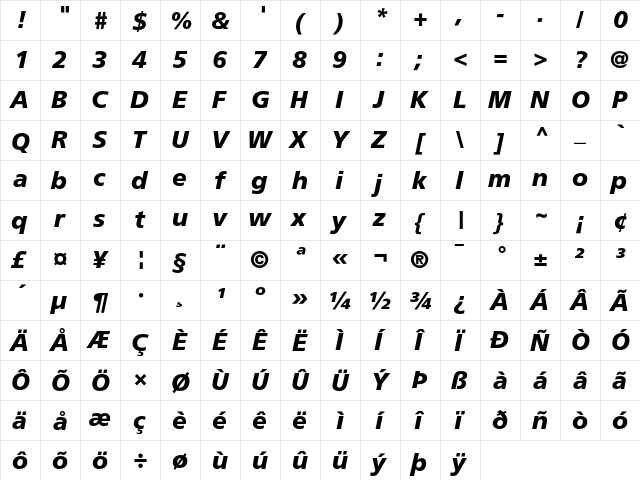
Frutiger 76 Black Italic
Design Context for Frutiger Typeface
Frutiger is a composed and adaptable typeface that performs quietly and consistently across a wide range of design contexts. The dynamic lean of this cut emphasises speed and emphasis in any layout.
Pro Tip: Use Frutiger for emphasis, pull quotes, and subheadings where its slanted energy can add rhythm to the layout.